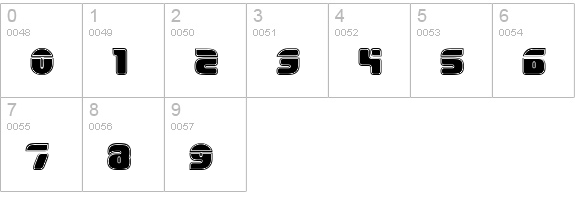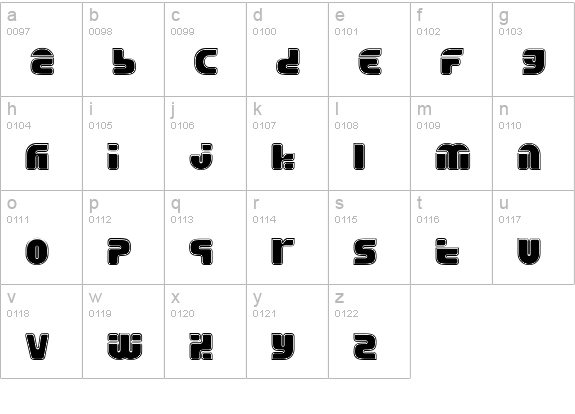
EraserTwentyGuage Font Details
EraserTwentyGuage font is a bold and dynamic typeface that exudes a modern and edgy vibe. With its sharp angles and sleek lines, this font is perfect for creating eye-catching designs that demand attention. Whether you're working on a poster, logo, or website, EraserTwentyGuage font will add a touch of sophistication and style to your projects. The best part? EraserTwentyGuage font is completely free to download at FontsMarket.com, allowing you to access this versatile and striking font without any cost. So go ahead and elevate your designs with the impressive presence of EraserTwentyGuage font, available for free download now.